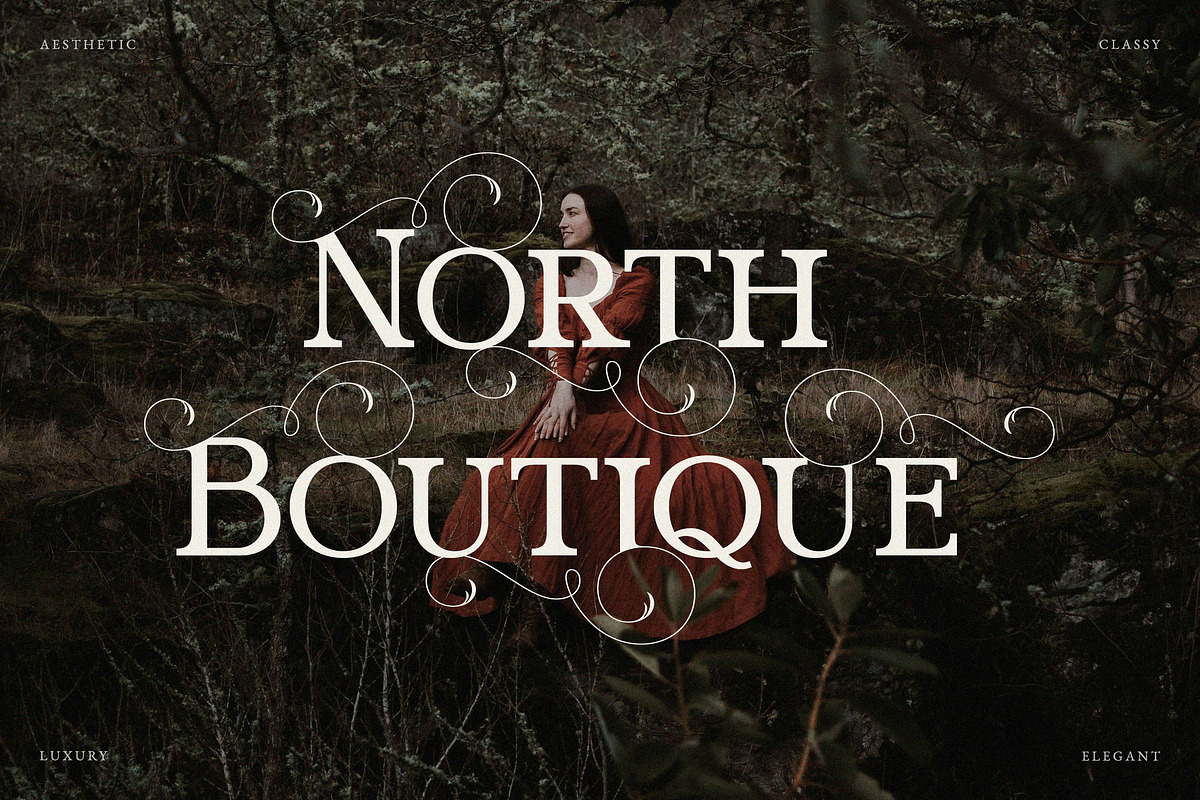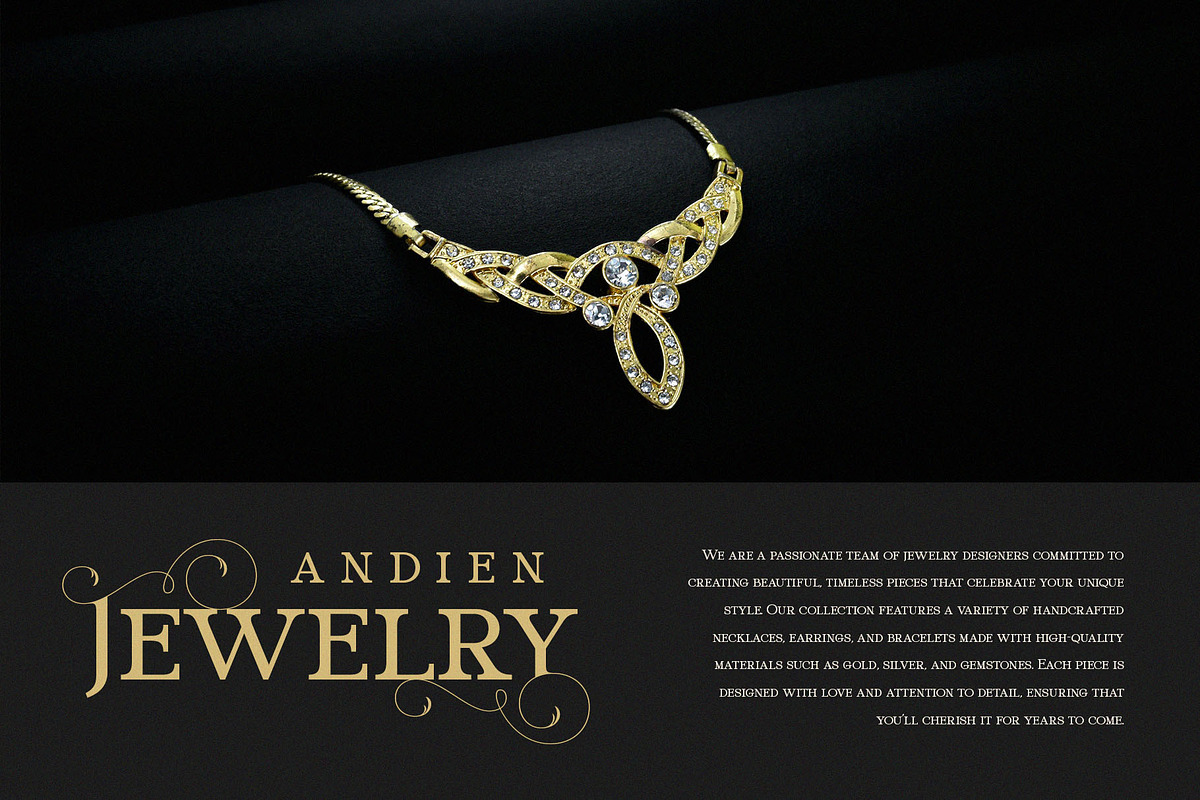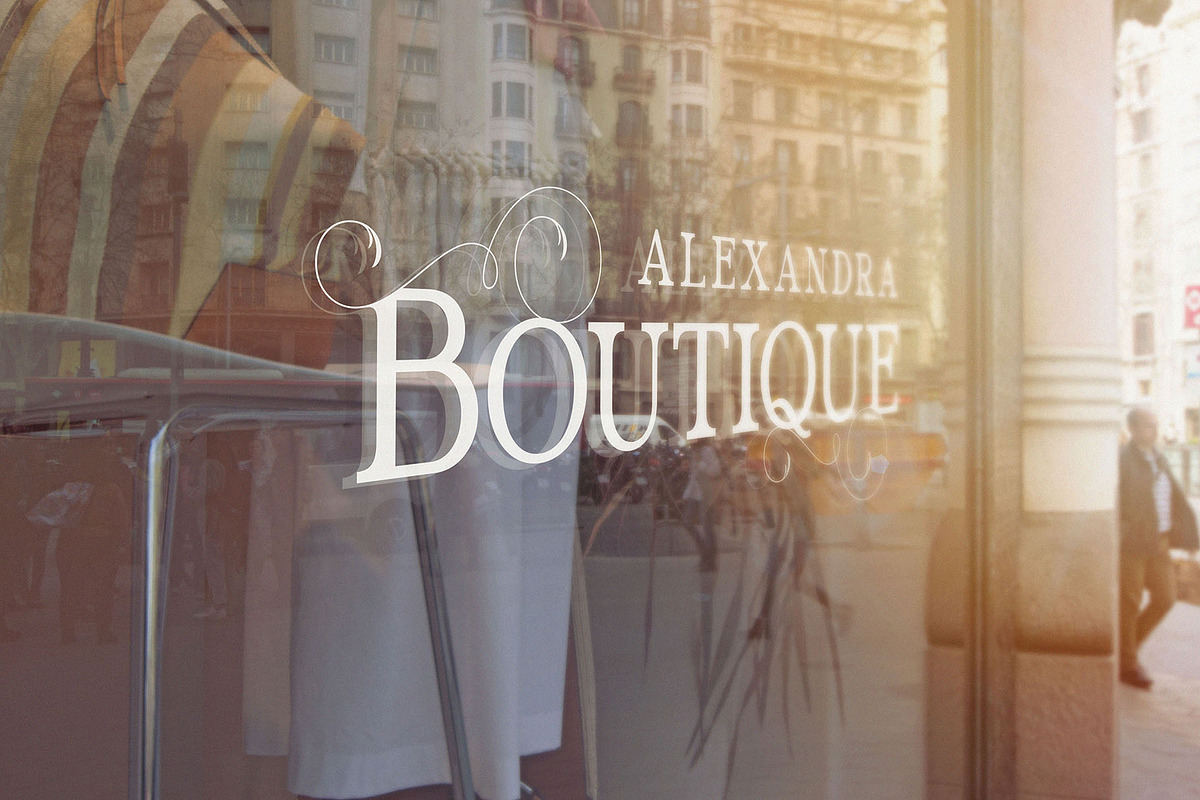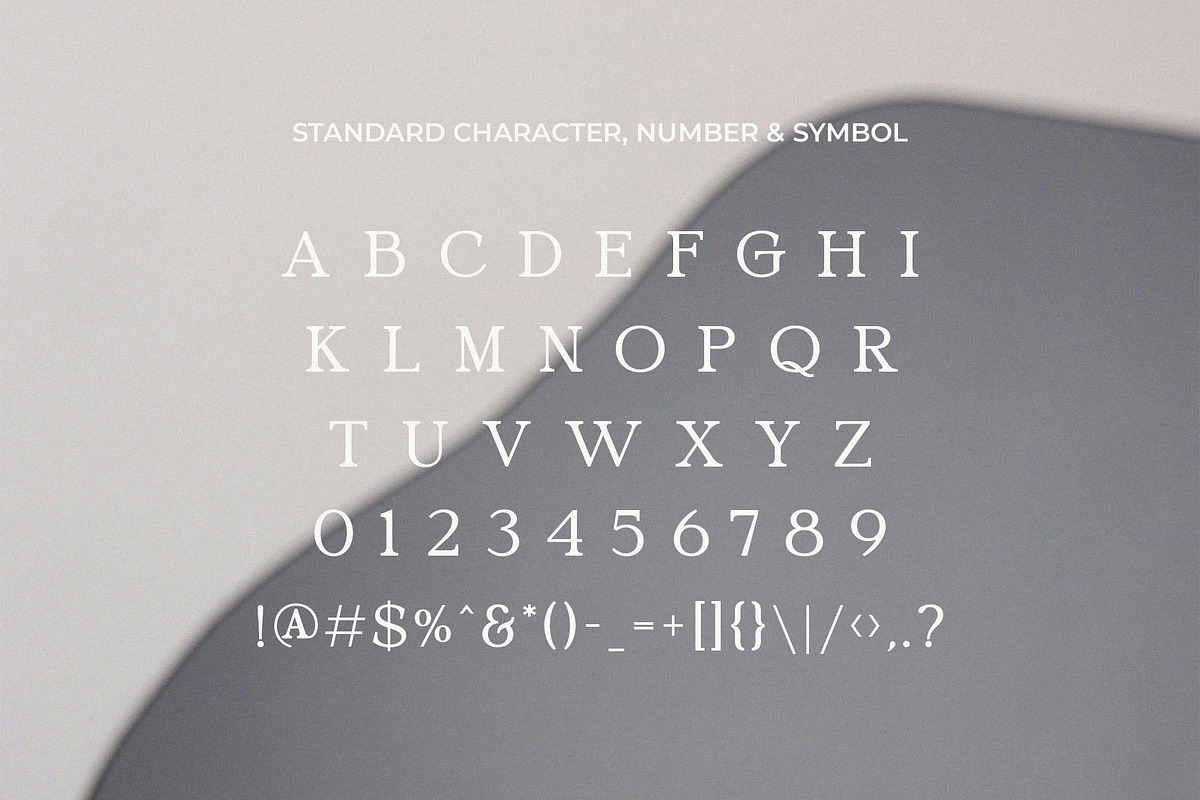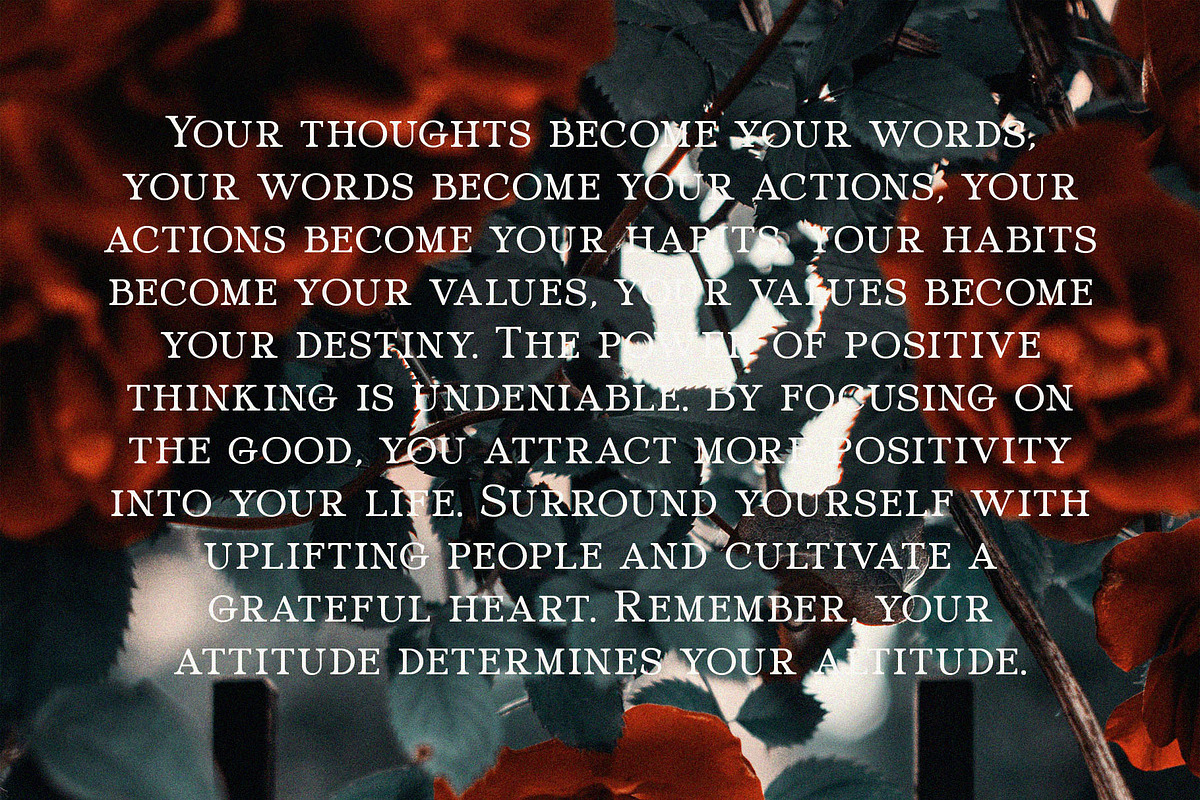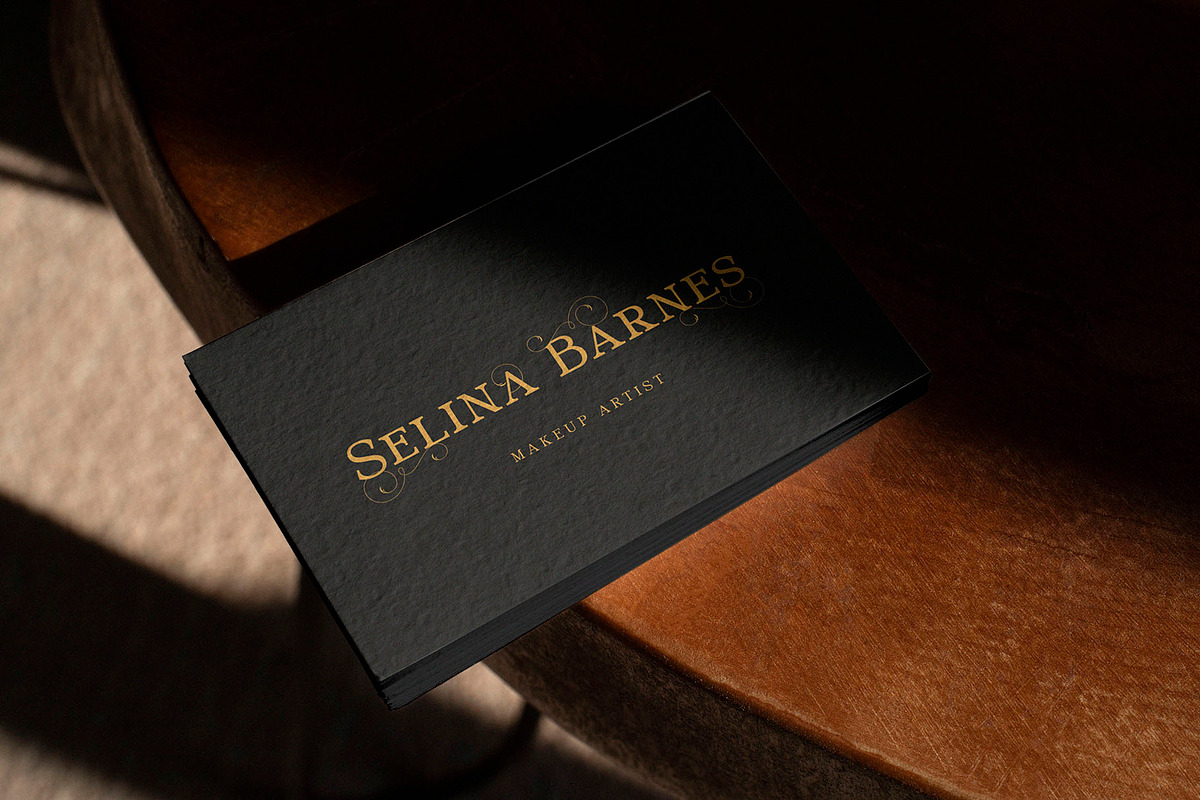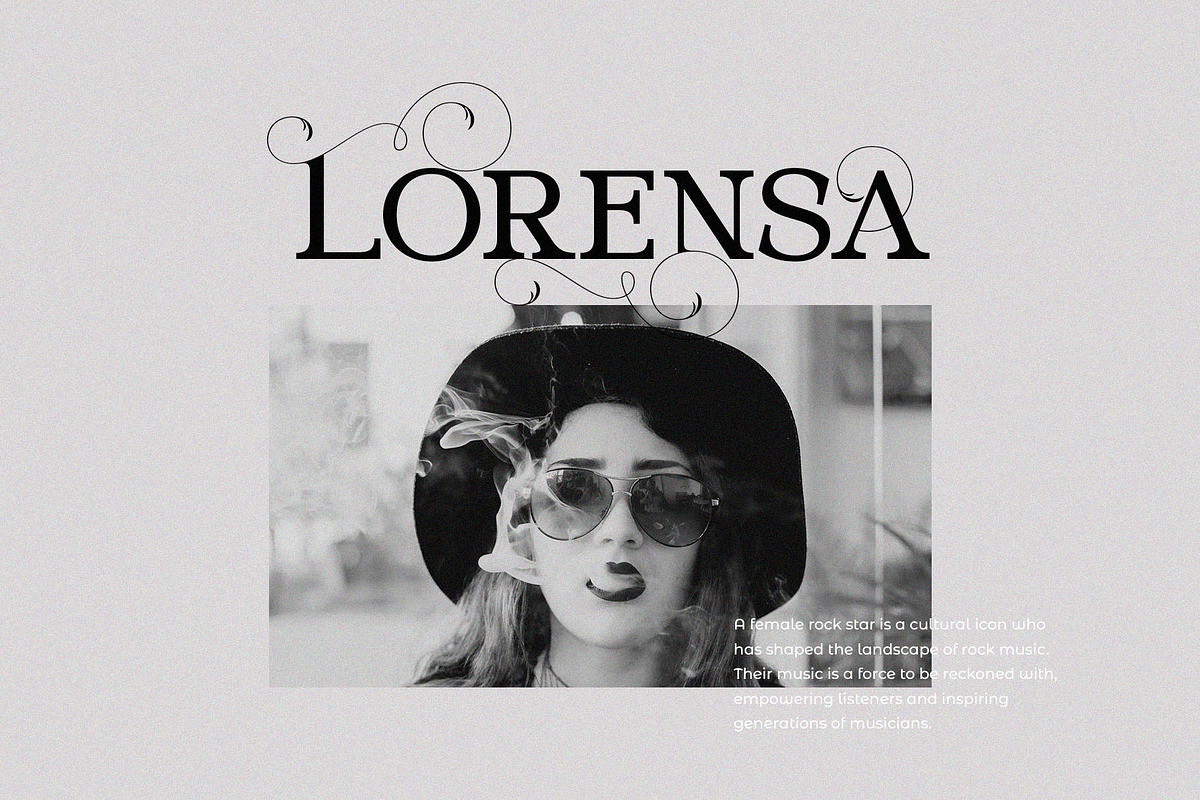
North Boutique
Hello, new elegant & stylish serif called North Boutique!!! North Boutique is a stylish and elegance serif font Works great for logos, magazine, social media. It come with a unique lower and uppercase plus numbers, punctuation & multilingual letters, alternates and ligatures.